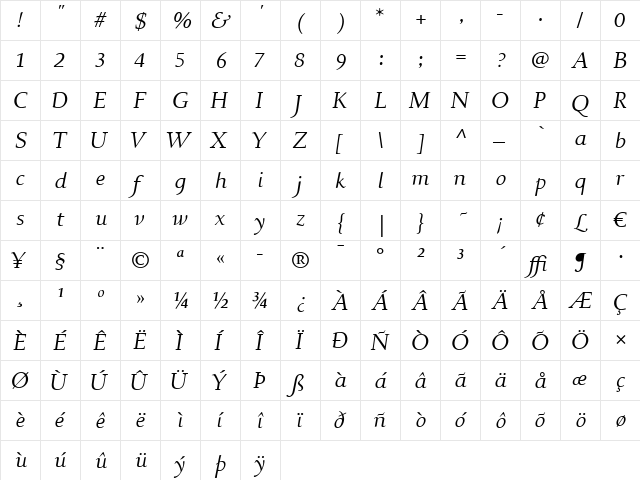
Beln Regular
Design Context for Beln Typeface
Beln offers clean, dependable letterforms without strong stylistic allegiance, making it a practical choice for designers who need flexibility.